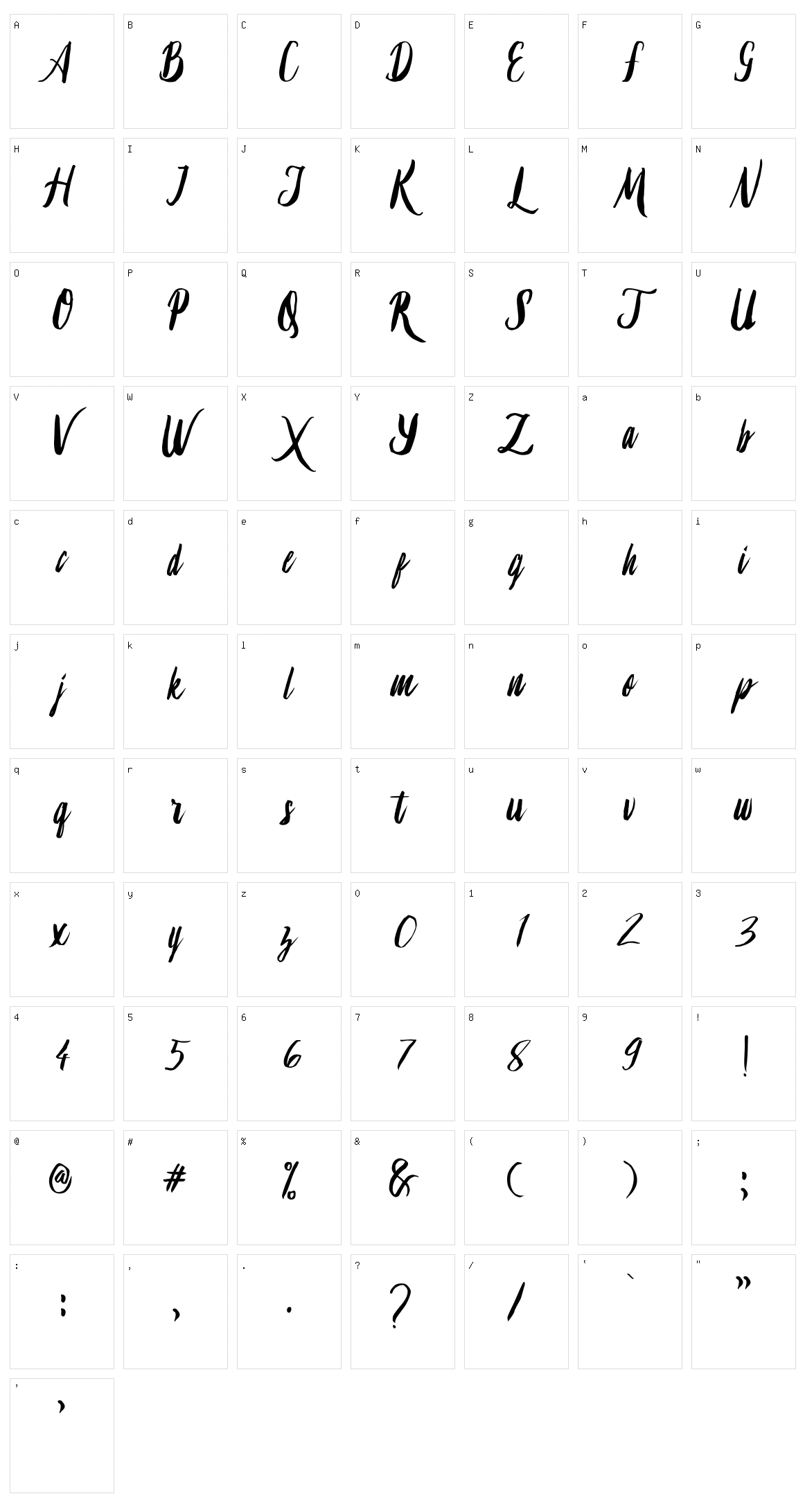
The free font Lambaretta is carefully designed by Pathero Studio, showcasing a thoughtful balance of creativity and usability and falls under the Script font style. When you download the ZIP file, it contains only 60.03 KB of font files, making it lightweight and quick to download. Please review the license details below to understand permitted usage and distribution rights. If license information is not available, we recommend using this font for personal projects only or contacting the author directly for commercial usage permissions.